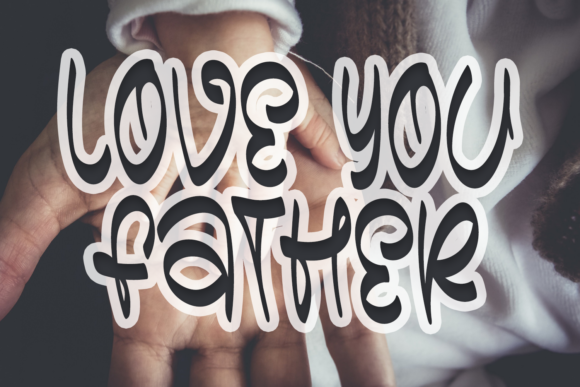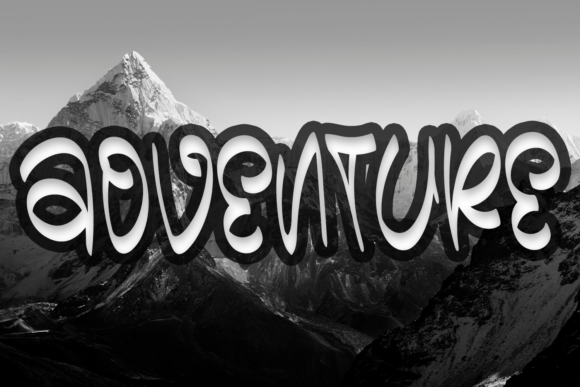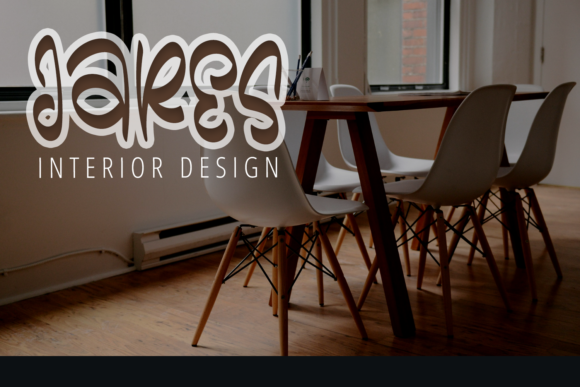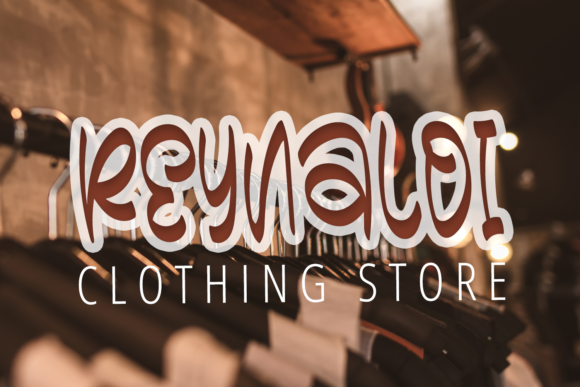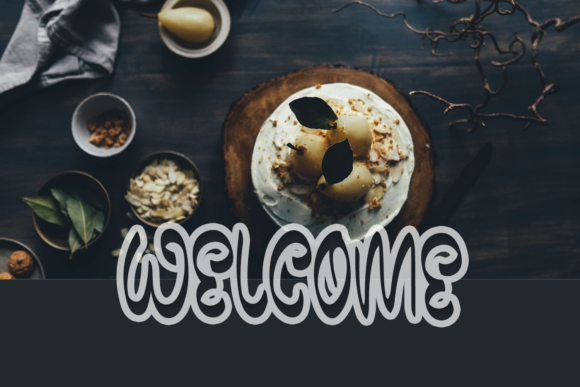
Himalaya Font
About Himalaya Font
Himalaya is a simple, friendly and natural handwritten font. It works great on a variety of creative ideas related to children, school or pretty much anything that requires a bright touch.